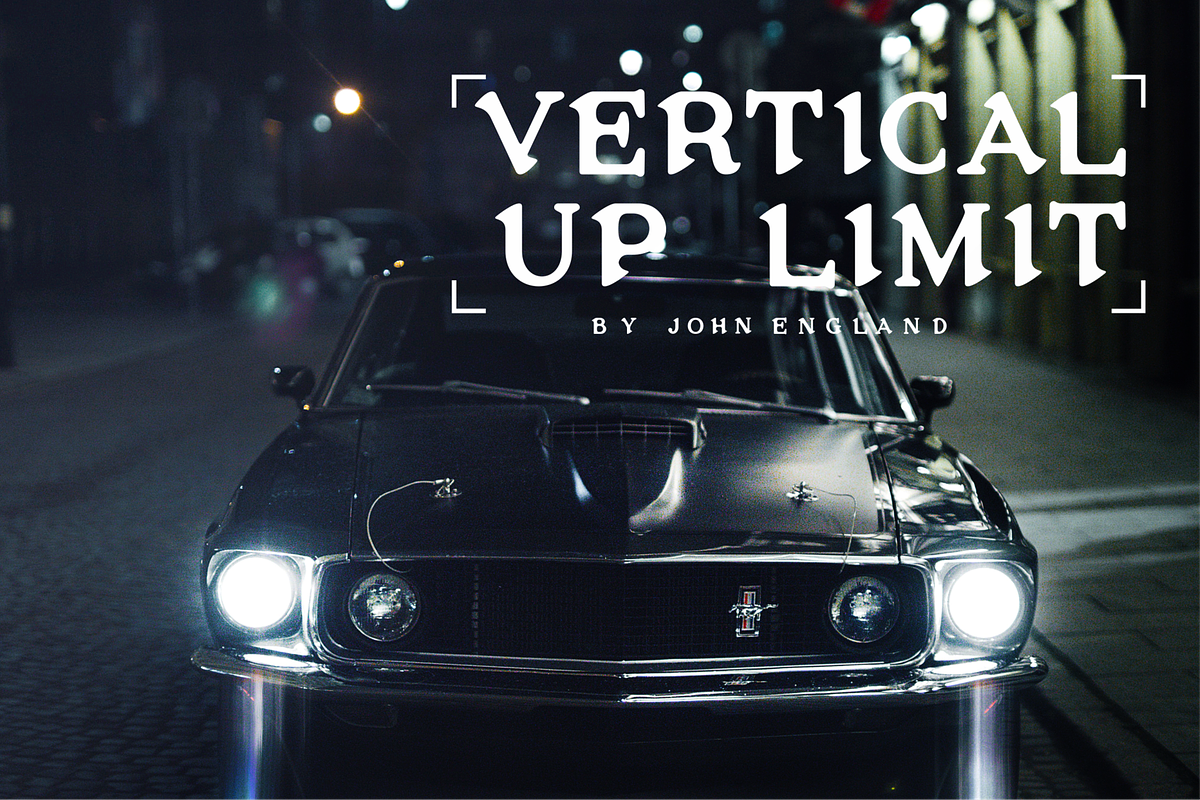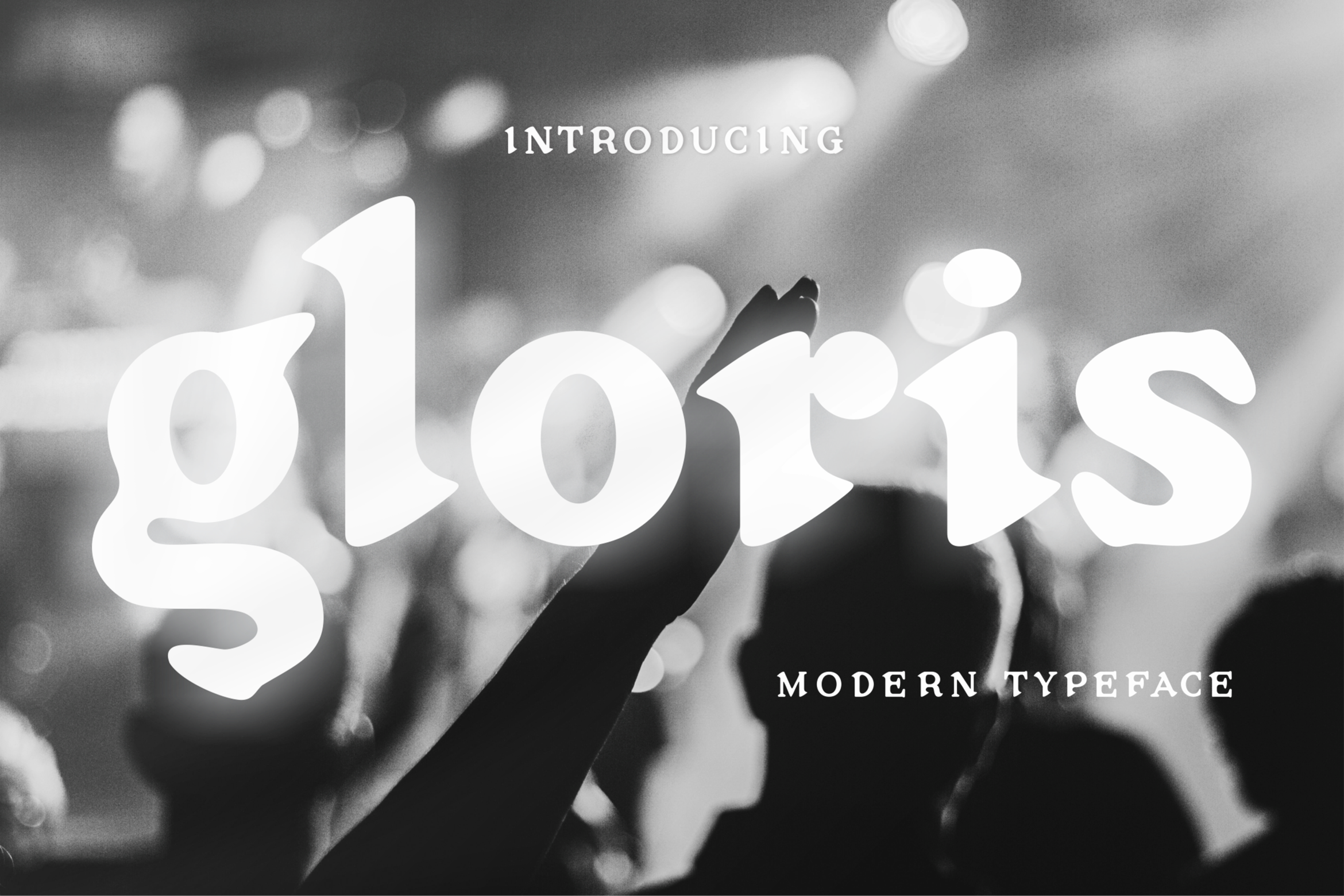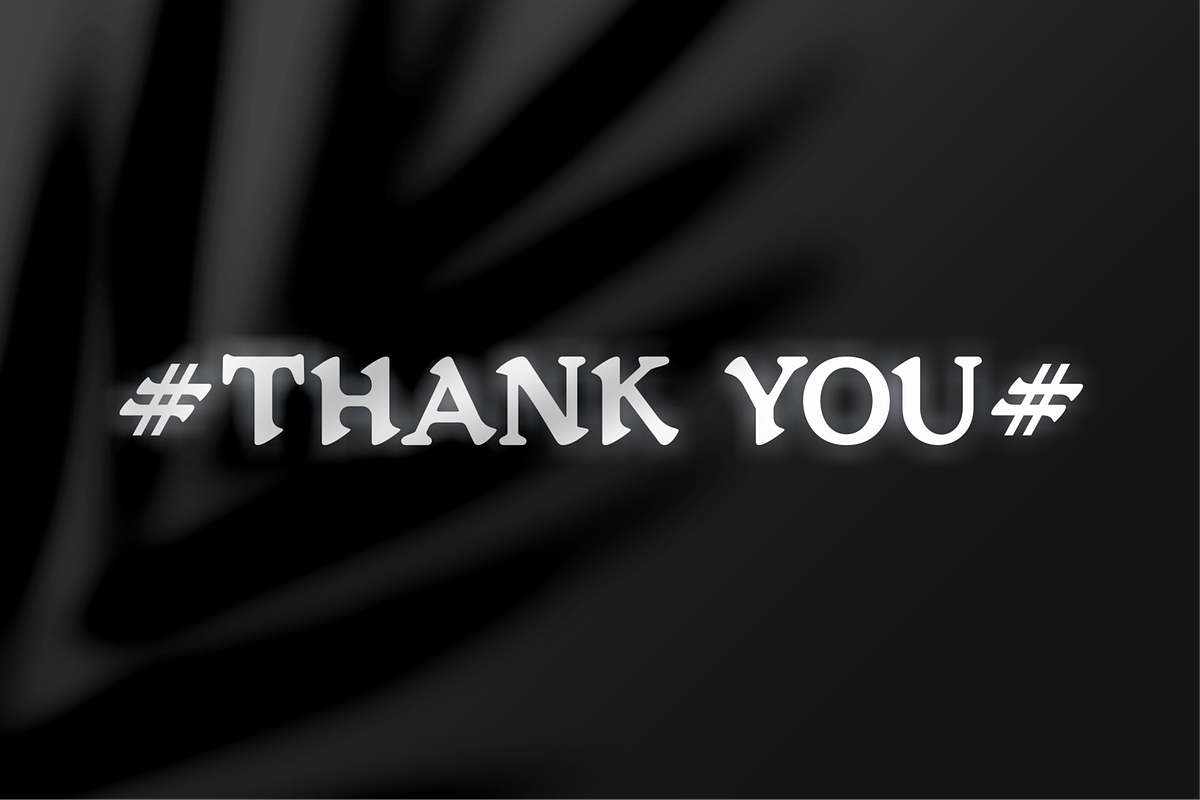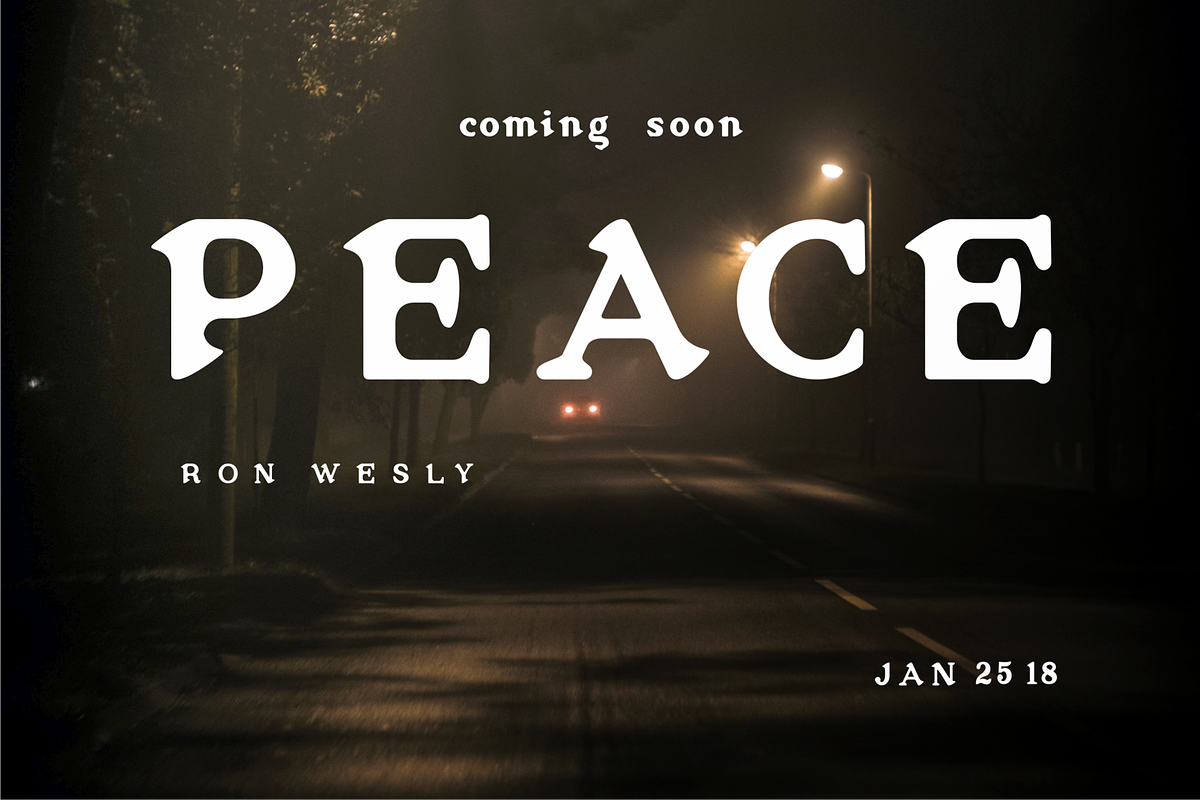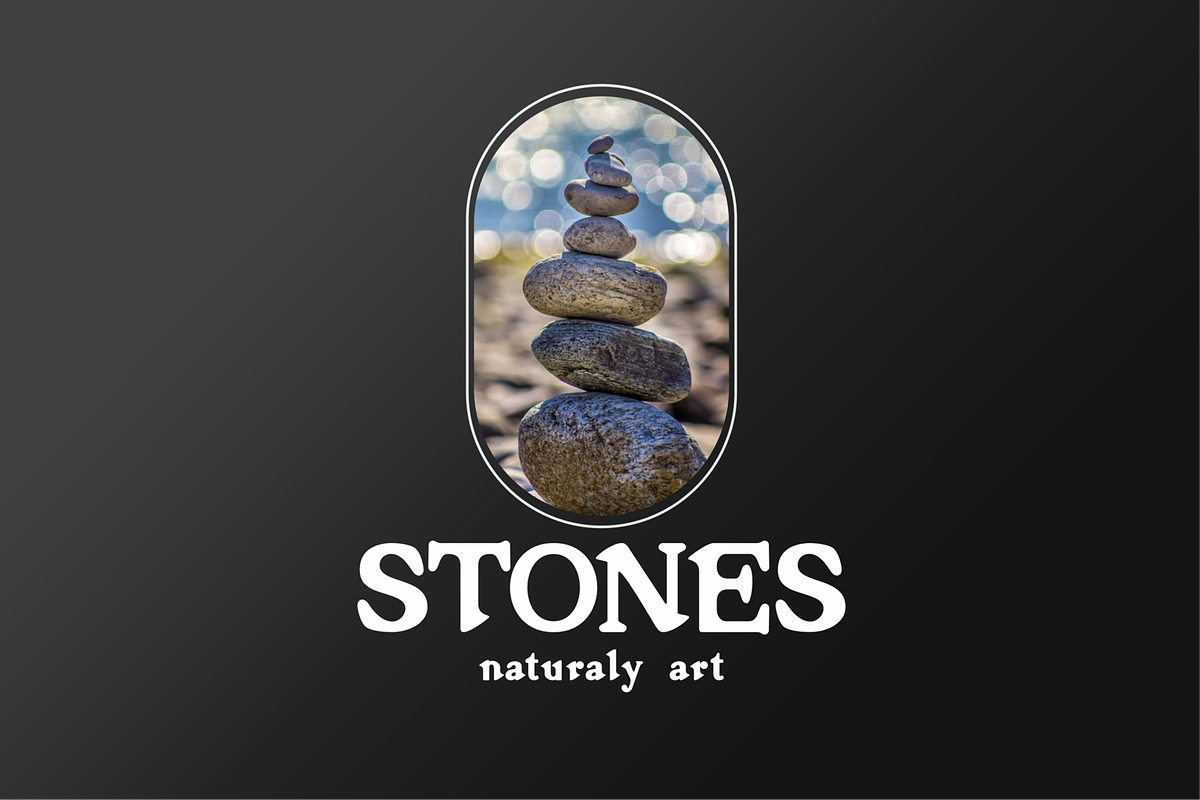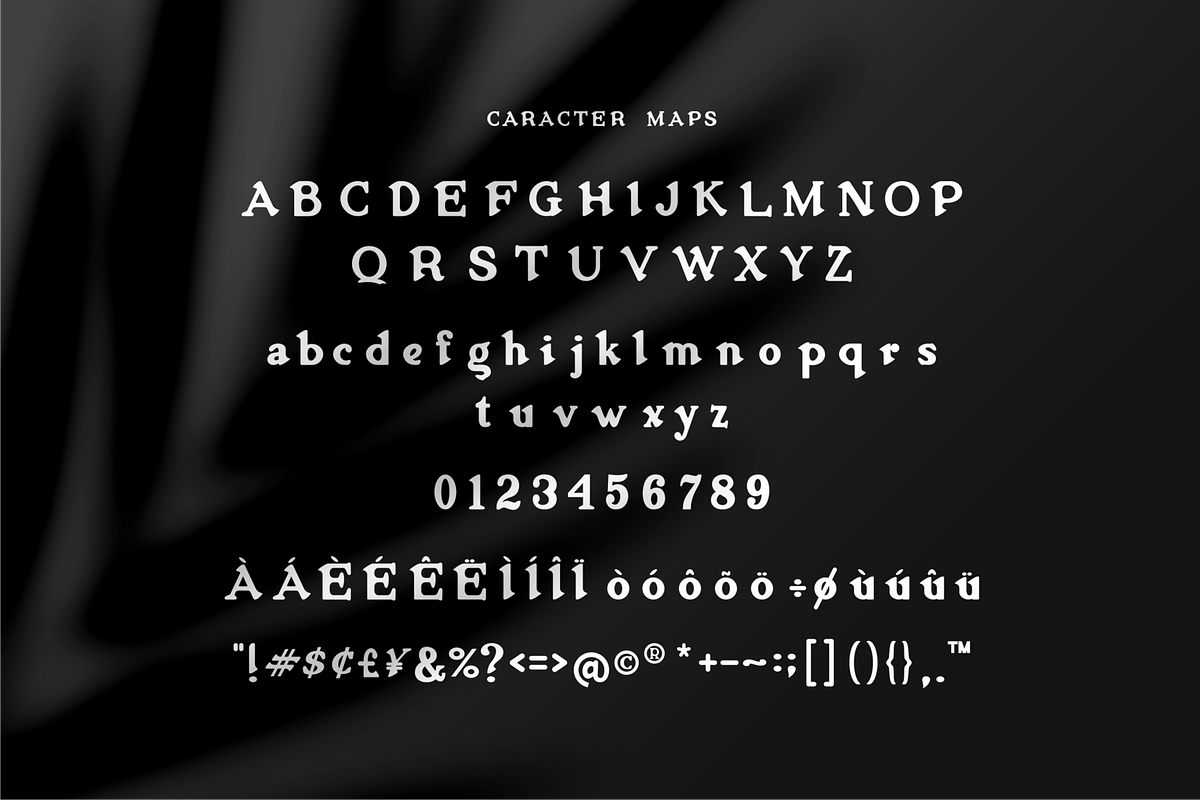
Gloris - Serif Font
introducing our new "Gloris" Modern Serif with Elegant style this is perfect for branding, logos, invitation, masterheads and more.
features :
Uppercase & lowercase Punctuation & numeric Multilingual